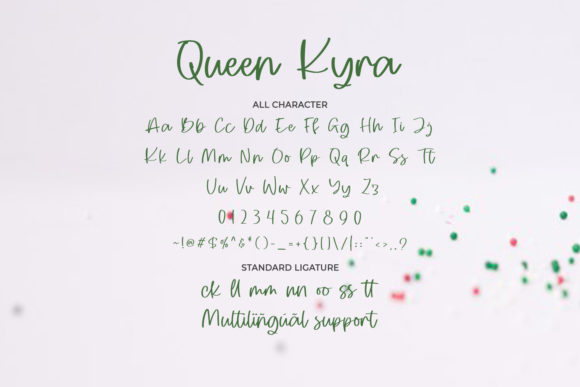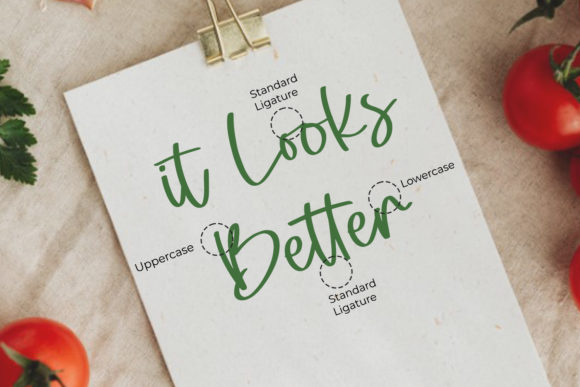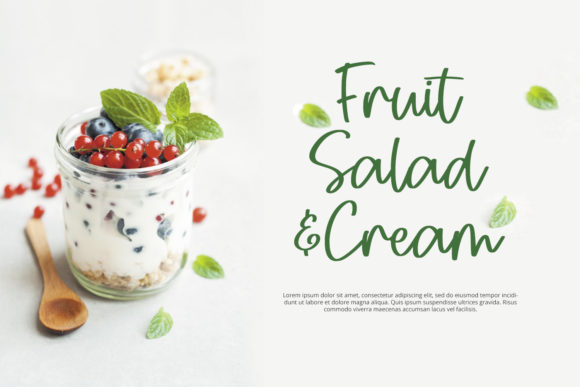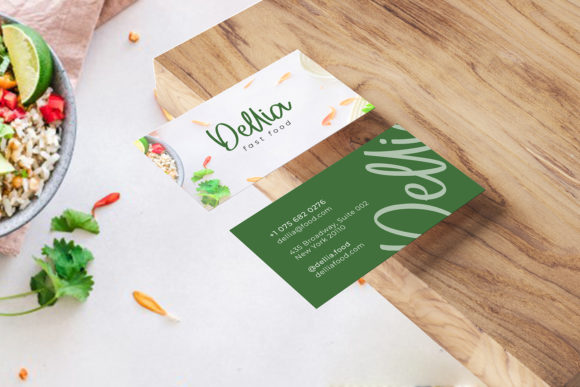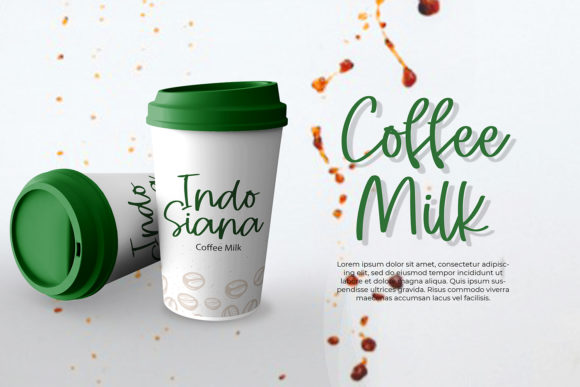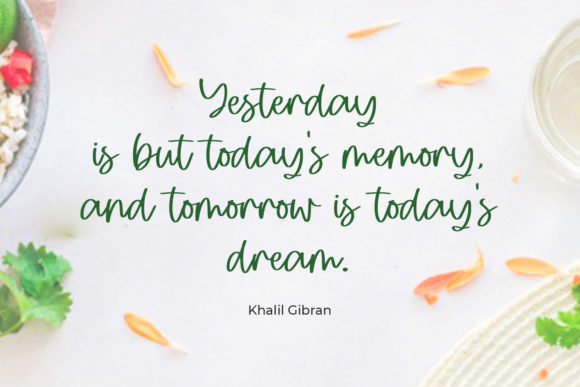
Introduction to Queen Kyra Font Font
Fonts play a crucial role in design, and the Queen Kyra Font font is a typeface that brings both character and versatility to any project. Whether you’re working on a branding project, a website, or a print design, the Queen Kyra Font font offers a unique style that can elevate your work.
| 📌 Font Name | Queen Kyra Font |
| 👤 Author | Yumna_Type |
Queen Kyra is a beautiful handwritten font, made for any professional project.
It is the best for logos, branding and quotes Every letter has a unique and beautiful touch.
Key Features of Queen Kyra Font Font
Why Choose Queen Kyra Font Font?
The Queen Kyra Font font is more than just a typeface – it’s a design tool that helps you communicate your message with style and clarity. Its unique character set and versatile design make it suitable for a wide range of applications, from elegant invitations to bold headlines.
With its carefully crafted letterforms and balanced proportions, the Queen Kyra Font font ensures readability and visual appeal across all mediums.
What makes Queen Kyra Font font special?
The Queen Kyra Font font stands out with its unique design, exceptional readability, and versatility across various design applications.